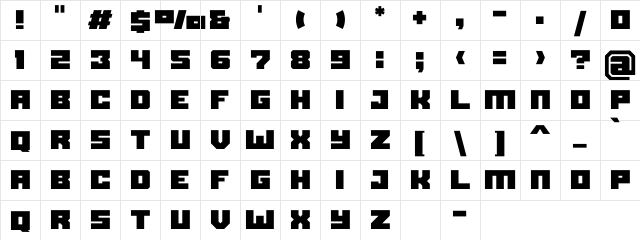
Black bison Regular
| Designer | Ari juanda |
Design Context for Black bison Typeface
Black bison is a composed and adaptable typeface that performs quietly and consistently across a wide range of design contexts.